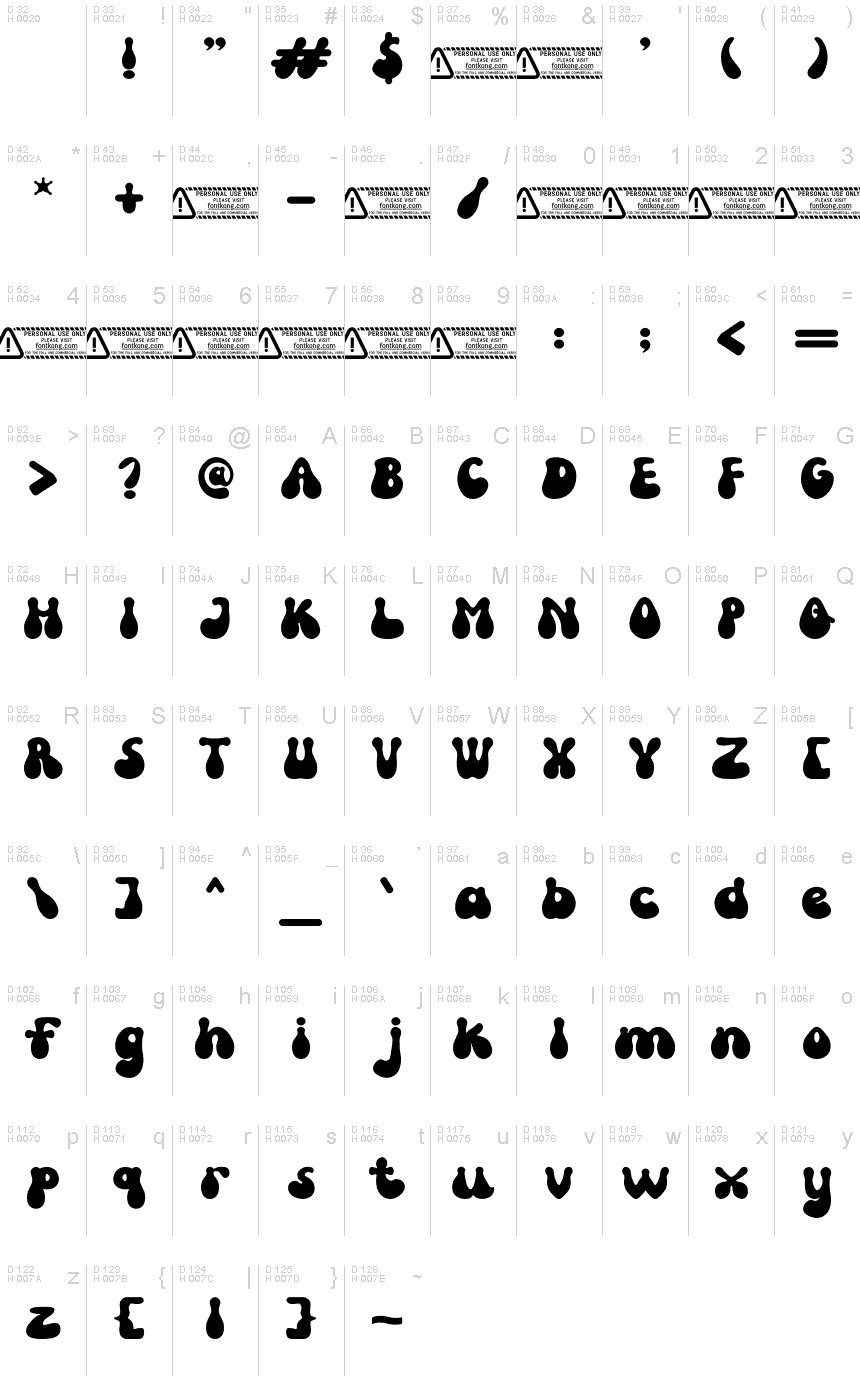
Kong Groovy
Kong Groovy is a display font that encapsulates the spirit of the '60s and '70s with its playful curves and bold presence. Designed by Kong Font, this typeface boasts an extra-bold weight that commands attention, making it a perfect choice for creative projects looking to convey energy and flair. The groovy style of Kong Groovy is characterized by its flowing, rounded letters that seem to dance across the page, evoking a sense of fun and nostalgia.
With its strong aesthetic appeal, Kong Groovy provides a visually striking impact in large-scale applications such as posters, headlines, and branding initiatives. The font's curvaceous nature not only adds a touch of retro charm but also ensures legibility at various sizes. Whether you're crafting an eye-catching logo or setting the mood for an event with vintage vibes, Kong Groovy is versatile enough to infuse your designs with personality while maintaining readability.
Embrace the boldness of Kong Groovy in your next project and let its distinctive groovy style set your work apart from the ordinary.